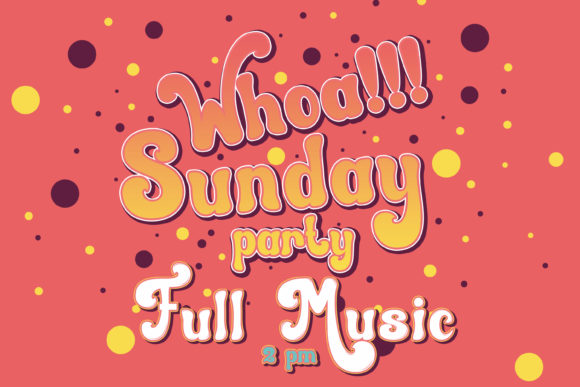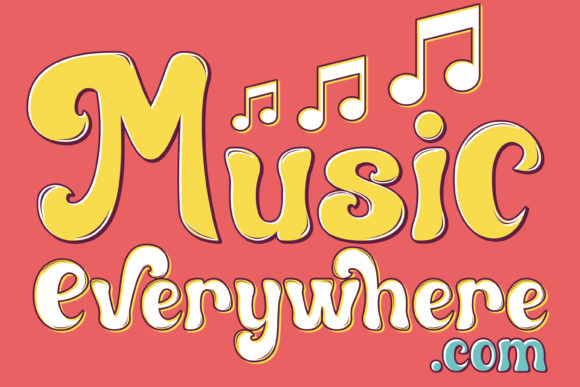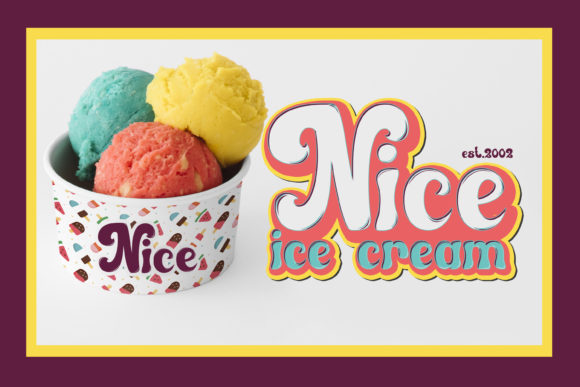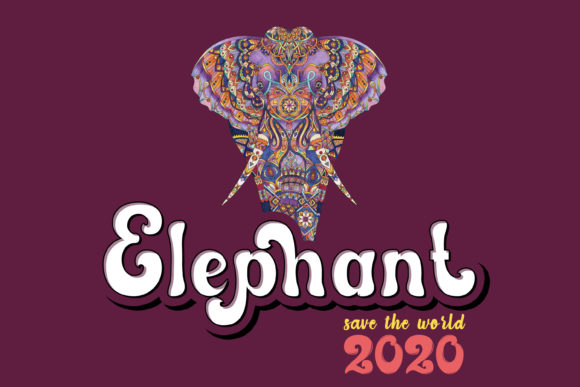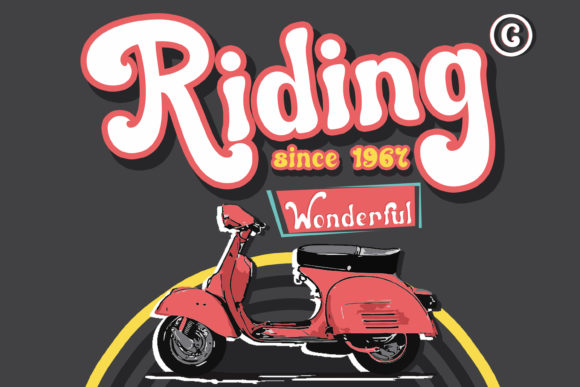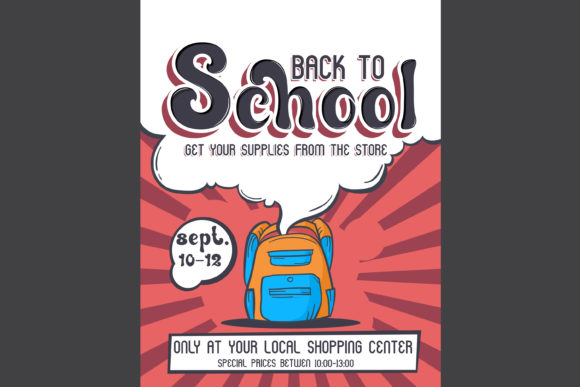
Casbelov Font: The Ultimate Choice for Fun and Playful Designs
Are you looking for a font that can add a touch of excitement and playfulness to your designs? Look no further than Casbelov Font! With its incredibly cheerful character, Casbelov is the ideal font for circus, carnival, or kids’ party projects. This adventurous display font is sure to ignite your creativity and take your designs to the next level.
What Makes Casbelov Font So Special?
Casbelov Font is a unique and eye-catching font that is designed to evoke the sense of fun and adventure associated with circuses, carnivals, and kids’ parties. Its cheerful character is sure to grab the attention of your audience and leave a lasting impression. Whether you’re designing posters, flyers, or invitations, Casbelov Font is the perfect choice.
Key Features of Casbelov Font
- Cheerful Character: Casbelov Font has a playful and cheerful character that is sure to add a touch of excitement to your designs.
- Adventurous Display Font: This font is designed to make a statement and is perfect for headlines, titles, and other display text.
- Perfect for Circus, Carnival, or Kids’ Party Projects: Casbelov Font is specifically designed for projects that require a fun and playful touch.
- Easy to Read: Despite its playful nature, Casbelov Font is easy to read and understand, making it perfect for use in a variety of designs.
How to Use Casbelov Font in Your Designs
Casbelov Font is a versatile font that can be used in a variety of designs, including:
- Posters: Use Casbelov Font to create eye-catching posters for circuses, carnivals, or kids’ parties.
- Flyers: Add a touch of excitement to your flyers with Casbelov Font.
- Invitations: Use Casbelov Font to create fun and playful invitations for kids’ parties or other events.
- Logos: Casbelov Font can also be used to create fun and playful logos for businesses or organizations that cater to kids or families.
Tips for Getting the Most Out of Casbelov Font
Here are a few tips for getting the most out of Casbelov Font:
- Use it Sparingly: While Casbelov Font is a fun and playful font, it can be overwhelming if used too much. Use it sparingly to add a touch of excitement to your designs.
- Pair it with Other Fonts: Casbelov Font can be paired with other fonts to create a unique and interesting look.
- Experiment with Colors: Casbelov Font looks great in a variety of colors, so don’t be afraid to experiment and find the perfect color for your design.
In conclusion, Casbelov Font is a fun and playful font that is perfect for designers and crafters who want to add a touch of excitement to their designs. With its incredibly cheerful character and adventurous display font, Casbelov is the ideal choice for circus, carnival, or kids’ party projects. So why wait? Download Casbelov Font today and ignite your creativity!
Here are a few frequently asked questions about Casbelov Font:
- What is Casbelov Font? Casbelov Font is a fun and playful font that is perfect for circus, carnival, or kids’ party projects.